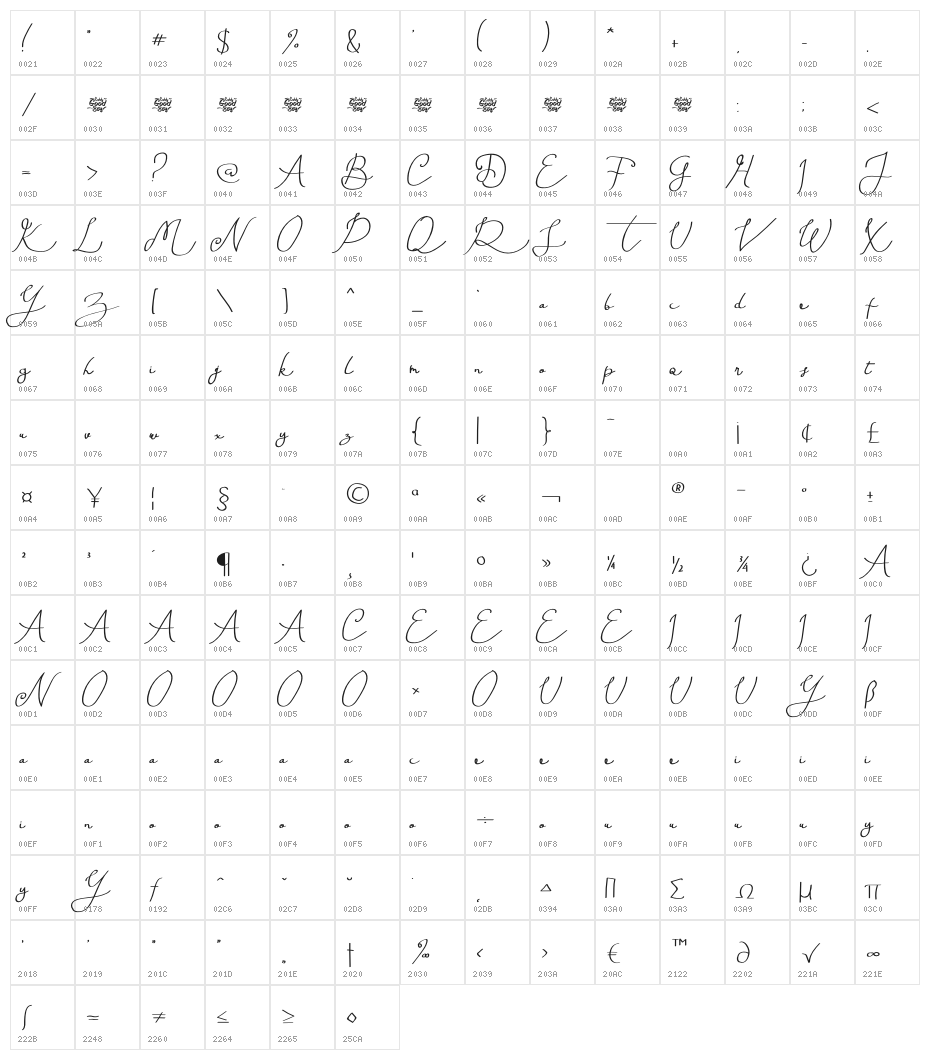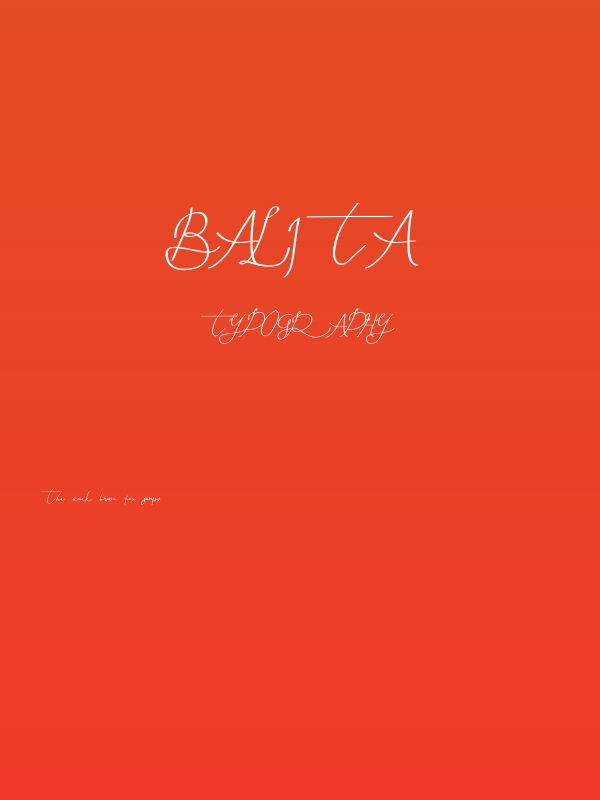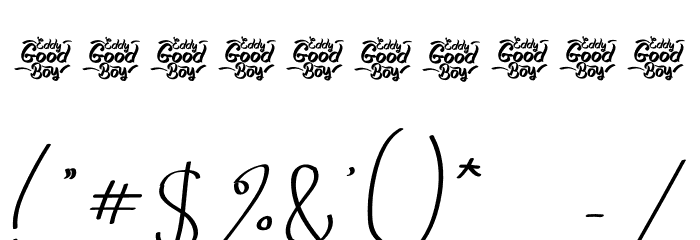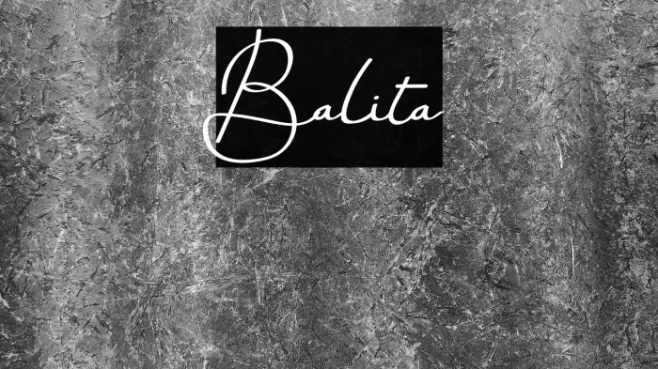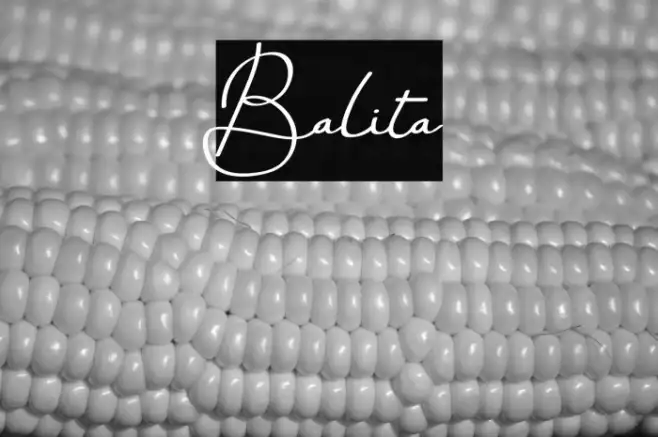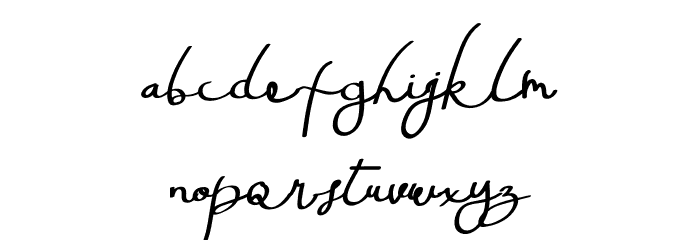
Balita Font
Balita Description
This font features an elegant and flowing script style, characterized by its smooth, cursive strokes and graceful loops. The uppercase letters are tall and slender, with a slight slant that adds a dynamic feel. The lowercase letters maintain a consistent flow, enhancing readability while preserving the decorative nature. The font includes a variety of special characters, maintaining the same fluidity and style. Its overall appearance is sophisticated and artistic, making it suitable for projects that require a touch of elegance and creativity.
| Proposed Projects | Ideal for wedding invitations, greeting cards, branding, and elegant logo designs. |